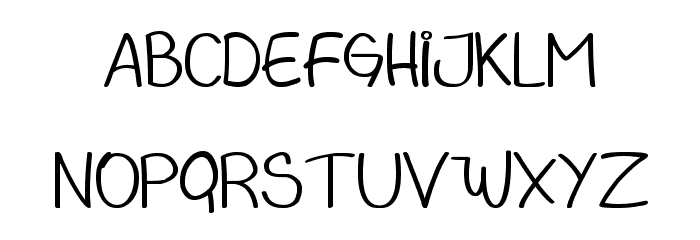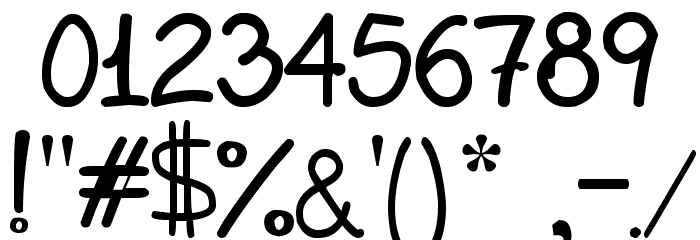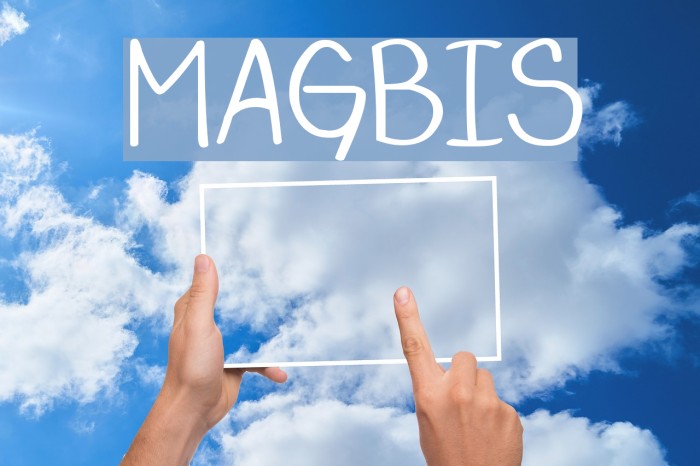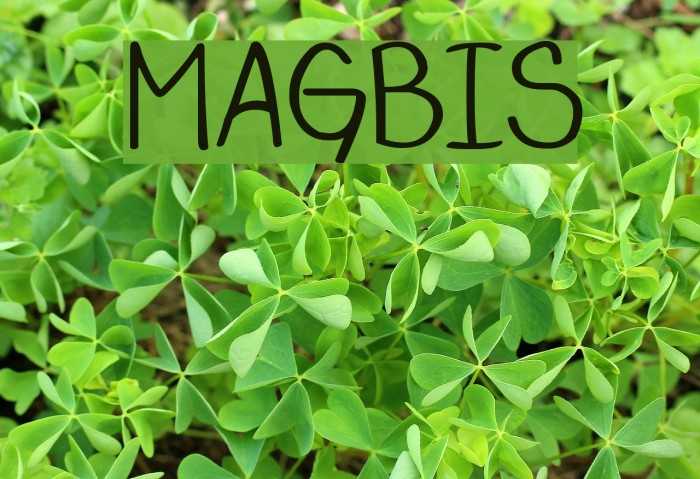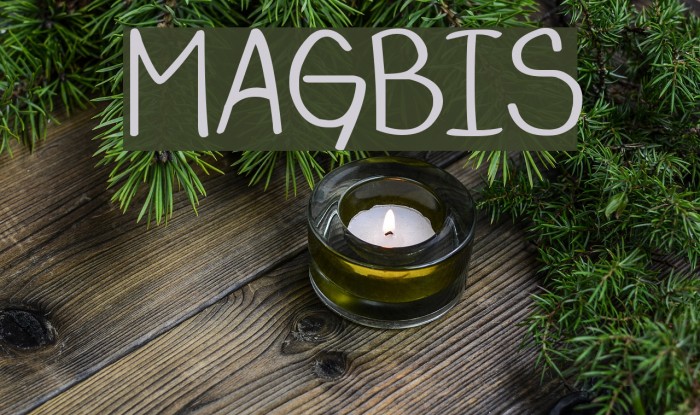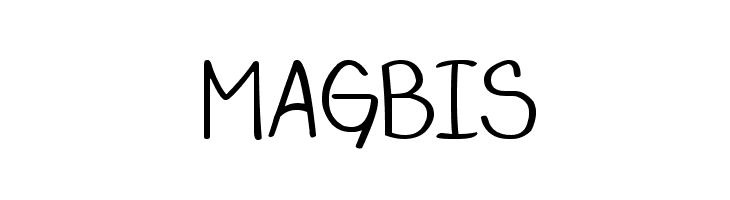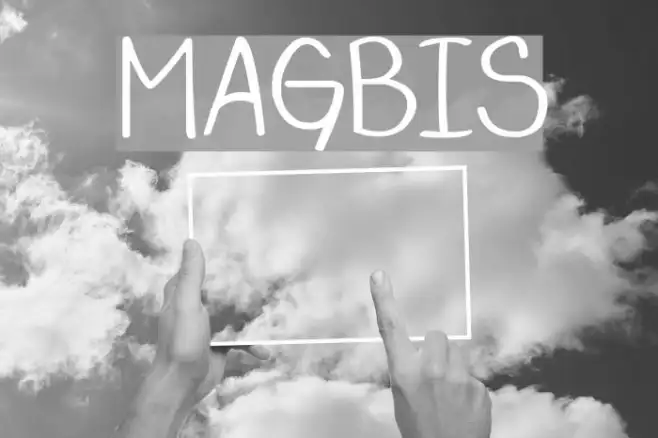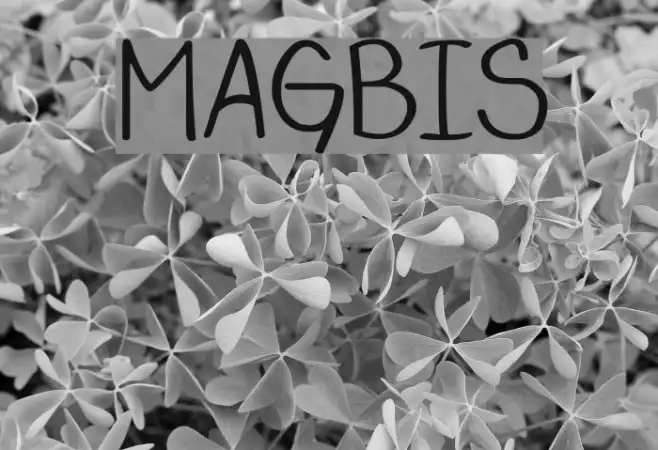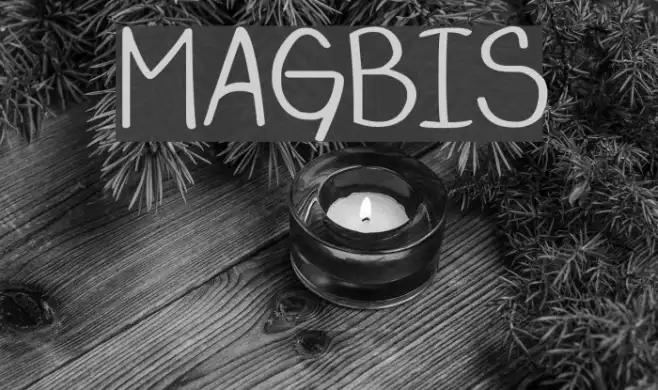
MAGBIS Font
This playful and informal font features a handwritten style with a casual, friendly appearance. The characters are slightly irregular, adding a personal touch that mimics natural handwriting. The uppercase letters are bold and rounded, while the lowercase letters maintain a consistent flow with a slight slant, enhancing the handwritten feel. The numerals are clear and easy to read, with a similar rounded style. Special characters are included, matching the overall aesthetic with a whimsical touch. This font is ideal for projects that require a personal, approachable, and fun vibe.
A playful, handwritten font with a casual and friendly appearance.
- Proposed Projects: Ideal for greeting cards, invitations, children's books, and casual branding.
- Overall Style: Casual, Playful
- Use Case: Headlines, Informal text, Creative projects